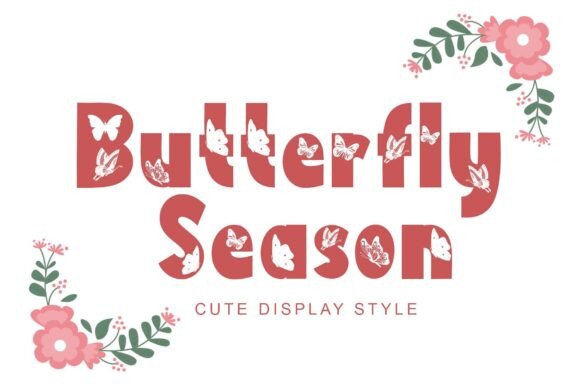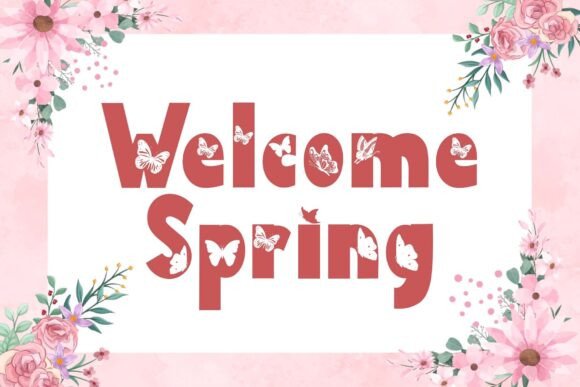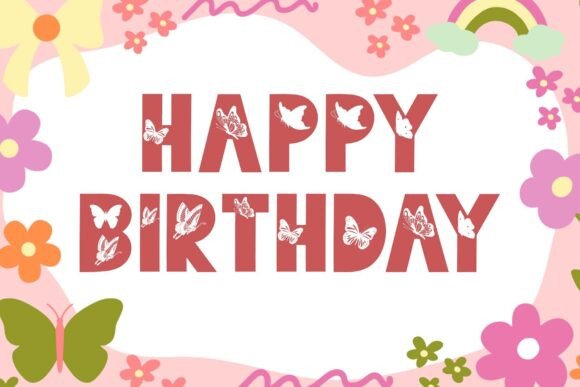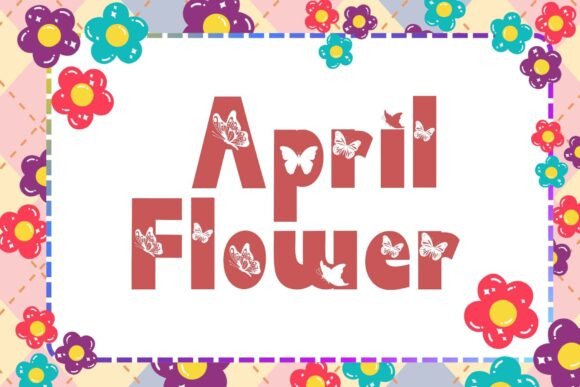
Butterfly Season Font: A Cute Display Font for Spring Crafts
About the Butterfly Season Font
Introducing the Butterfly Season Font, a beautifully crafted typeface designed to elevate your creative projects. “Butterfly Season” is a display font with butterfly decoration on each letter. This font is equipped with uppercase, lowercase, numeral, punctuations and multilingual support. Very suitable for use for spring, summer, holiday, posters, banners, branding, stickers, logos and others.
Its playful, decorative nature makes it ideal for headlines, short text blocks in posters and branding materials, and packaging design where a touch of whimsy is desired. Avoid using it for body text or UI elements; the ornate letterforms are poorly legible at smaller sizes and would hinder readability in extended use.
Butterfly Season’s lighthearted personality pairs well with clean sans-serif fonts like Montserrat or Open Sans for a balanced design. For a more sophisticated look, consider pairing it with a classic serif such as Garamond or a slightly more modern geometric sans-serif like Futura. These pairings provide a strong contrast, allowing the font’s decorative elements to stand out effectively.
This font is best suited for brands targeting a younger demographic, projects with a lighthearted or celebratory theme (e.g., weddings, children’s products), and designs aiming for a fun, spring/summer aesthetic.
Butterfly Season Font Usage Examples
Butterfly Season Font Example